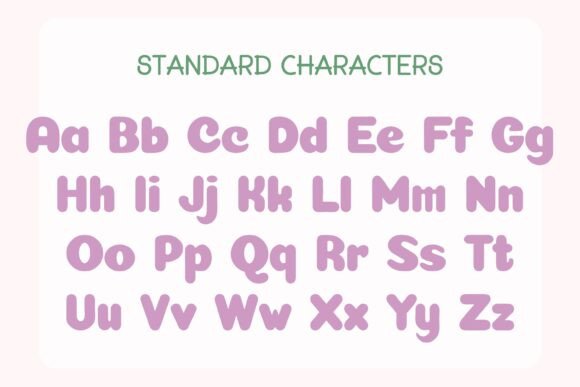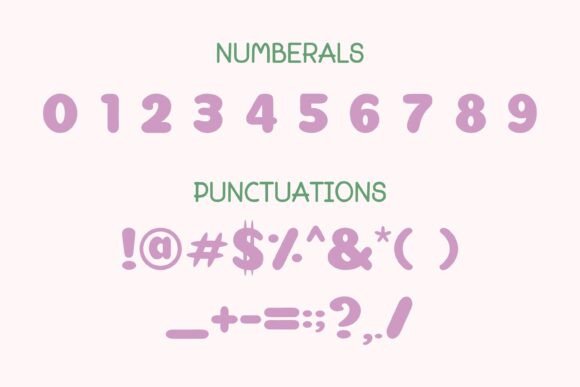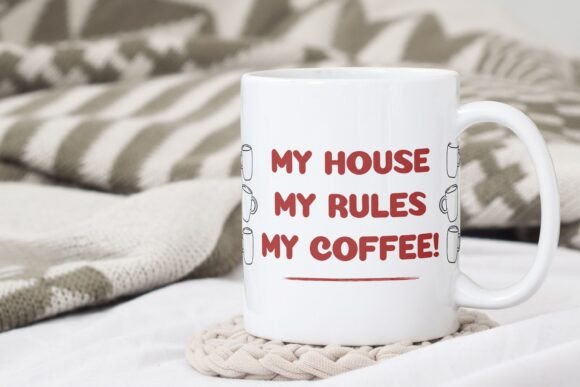
Introduction to Scalett Font
Remember the thrill of creating a birthday invitation for a little one’s special day? The excitement of crafting a design that captures their personality and makes them feel extra special? That’s exactly what the Scalett Font is designed to help you achieve. This delightful display font is the perfect addition to any creative project, bringing a touch of whimsy and friendliness to your designs.
With its soft rounded edges and bubbly character shapes, the Scalett Font is an ideal choice for designers looking to add a high-quality, playful touch to their work. Whether you’re working on a children’s book, product packaging, or a fun logo design, this font is sure to bring a smile to your face and your clients’. And the best part? It’s available as a free download, making it a valuable design resource for any creative project.
Honest Review: Scalett Font
I recently stumbled upon the Scalett Font, and I must say it’s been a game-changer for my creative project. The high quality of this font is evident in its crisp, clean lines and versatility in use. It’s a fantastic design resource that’s perfect for any project that requires a touch of sophistication.
Overall, I’m impressed with the Scalett Font. It’s a great resource for designers who need a high-quality font that’s easy to use. While it may not be the most extensive font library, it’s a fantastic option for simple designs and creative projects. I’d definitely recommend giving it a try!